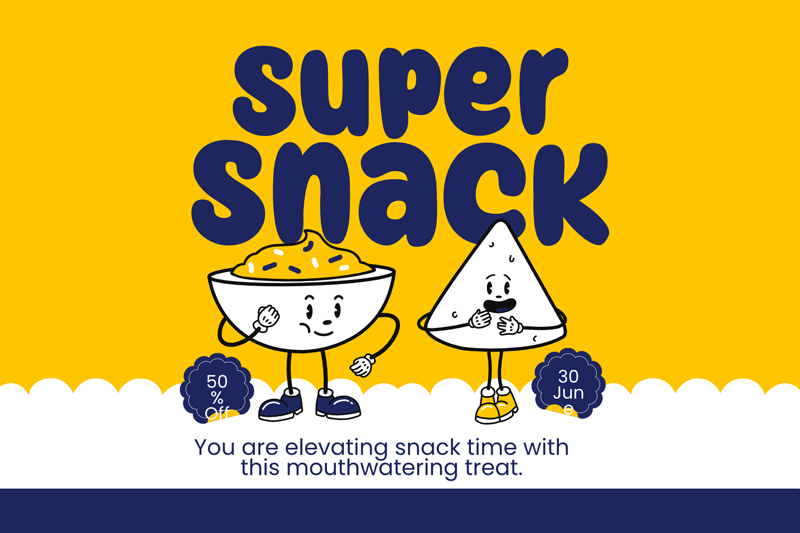
Preview and download Super Snack Font. Created by fsuarez913 in Fancy Cartoon styles with Free for personal use license.
This font is for PERSONAL USE ONLY!. If you want to use this font for commercial purposes, you will need to purchase a commercial license. You can purchase a commercial license at https://singlelinestd.com/product/super-snack/ Super Snack is a fun, cartoon, and simple font that is perfect for children�s books, cartoons, and other playful designs. The letters are all rounded and have a slight bounce to them, which gives them a sense of movement and energy. For questions, please visit https://singlelinestd.com/contact/ |